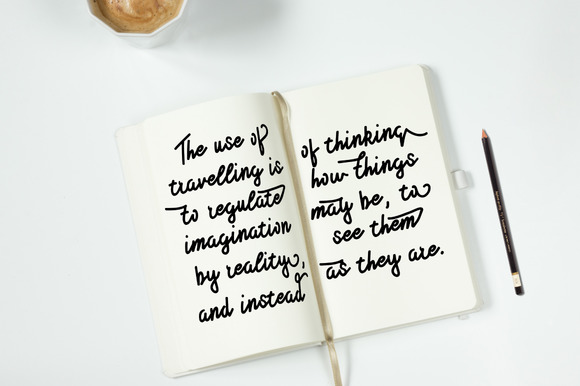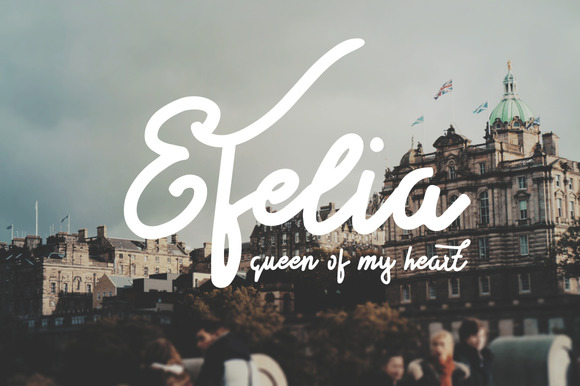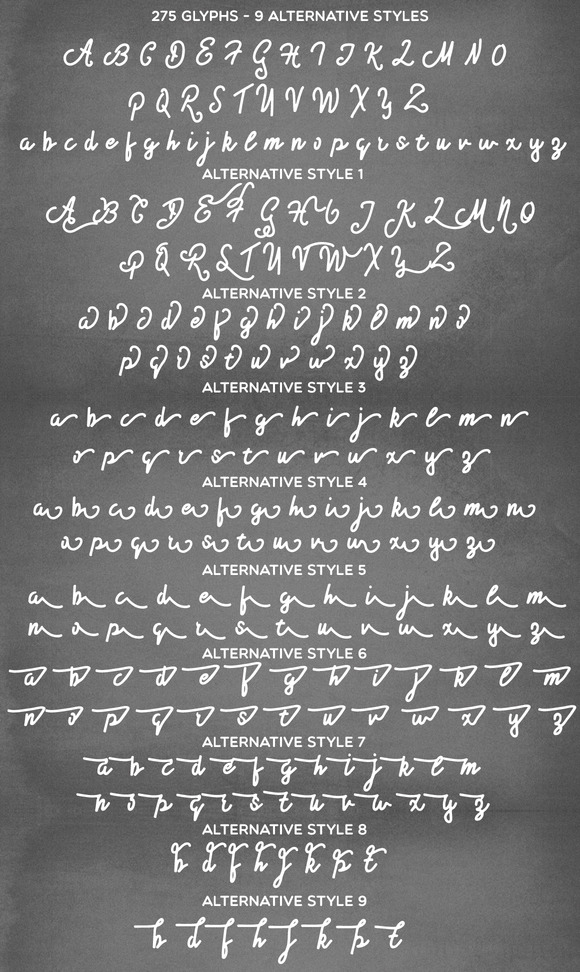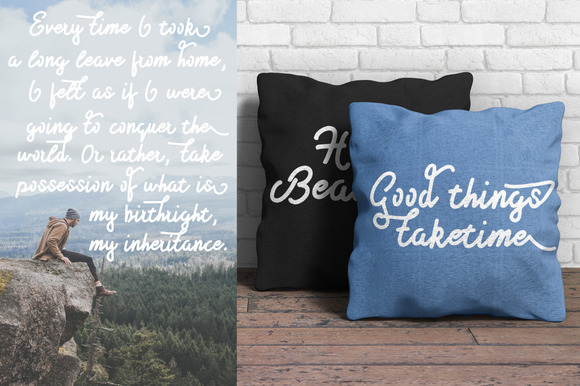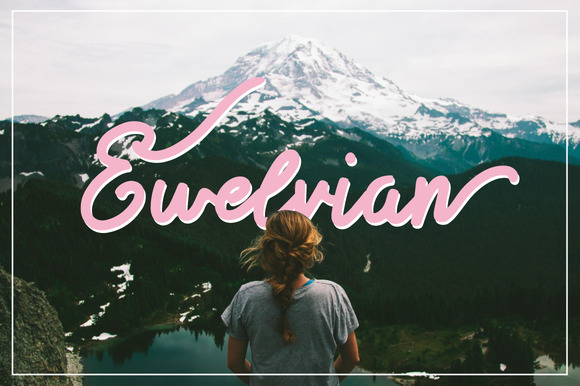
Ewelvian Script Font
Ewelvian Font is a script font, it has a modern look design styles. This font includes 275 glyphs. You can make your unique inscription, because the font contains 9 alternative styles.This fonts are perfect for inscription on the photo or invitation. Also with their help, you can create a logo or beautiful poster for your home. Or just use for your small business, book covers, stationery, marketing, magazines, posters and more.